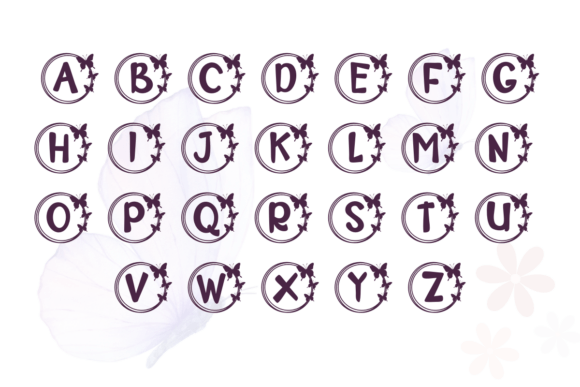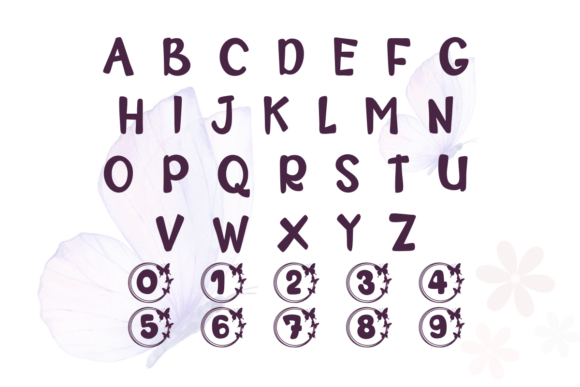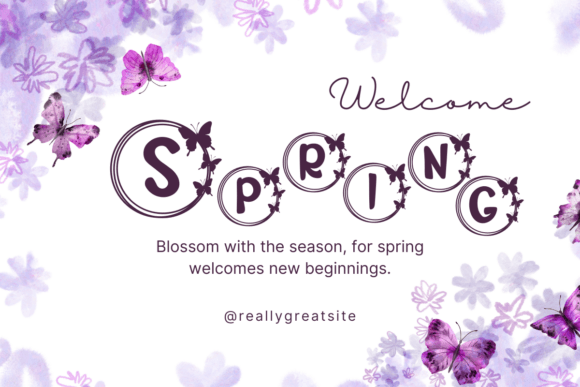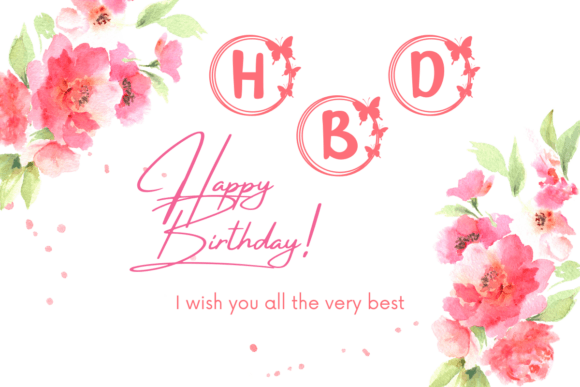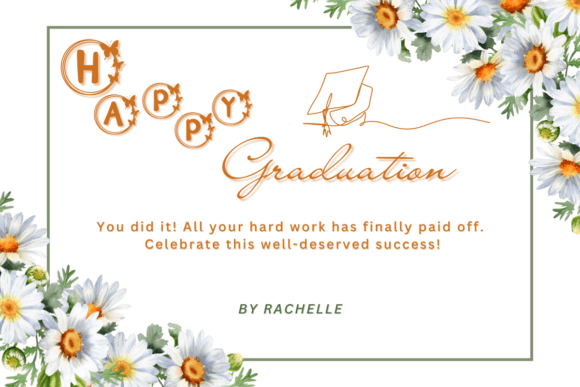
The Perfect Font for Your Creative Expressions
Have you ever sat down with a cup of coffee, a notebook, and a blank page, waiting for inspiration to strike? That’s exactly where I was when I stumbled upon the beautiful Butterfly Spring Font. Its delicate curves and playful touch instantly caught my attention, and I knew I had to learn more about it.
This decorative font is perfect for adding a touch of whimsy to your handwritten notes, diary entries, or greeting cards. But its uses don’t stop there – with the Butterfly Spring Font, the possibilities are endless, from designing banners and social media posts to creating custom mugs and shirts.
Butterfly Spring Font Key Features
- Unique Characteristics: Butterfly Spring Font features a beautiful, hand-drawn design with intricate details and subtle texture, making it perfect for creating visually appealing and elegant typography.
- Font Weight and Style: Available in 6 different font weights (Thin, Light, Regular, Medium, Bold, and Black) and 3 font styles (Regular, Italic, and Bold Italic), allowing designers to achieve the desired level of emphasis and contrast.
Designer Review: Butterfly Spring Font
I’ve had the chance to work with the Butterfly Spring Font, and here’s my honest take.
- The font has a beautiful, whimsical feel to it. It’s perfect for projects that need a touch of elegance and playfulness.
- The character set is well-rounded, with a good selection of glyphs and language support.
- The font’s x-height is well-balanced, making it easy to read, even at smaller sizes.
- The font’s bold weights can feel a bit heavy-handed at times, overpowering the more delicate elements of a design.
- The font’s italic styles can be a bit inconsistent, with some letters feeling more slanted than others.
- The font’s support for complex scripts and languages could be improved.
The Butterfly Spring Font is a lovely addition to any designer’s toolkit. While it has its limitations, it’s a great choice for projects that need a touch of whimsy and elegance. With a bit of finesse, you can create truly stunning designs that showcase the font’s unique personality.
Tips for Getting the Most Out of Butterfly Spring Font
Use the Butterfly Spring Font to add a touch of elegance and sophistication to your designs. Pair it with bold or italic fonts to create visual interest. Experiment with different font sizes and colors to create a unique look.
The Butterfly Spring Font is perfect for:
– Editorial and publishing content
– Any design project that requires a touch of elegance and sophistication
Alternatives to Butterfly Spring Font
Great Vibes is a beautiful, modern calligraphy font that works well for headings and titles. It’s perfect for creating a relaxed, casual atmosphere in designs such as invitations, wedding cards, and social media graphics. Great Vibes is more ornate and detailed compared to Butterfly Spring Font, making it ideal for designers who want to add a touch of elegance to their work.
Lato is a clean, sans-serif font that is highly legible and versatile. It’s suitable for a wide range of designs, from corporate materials to creative projects. Compared to Butterfly Spring Font, Lato is more minimalist and modern, making it an excellent choice for designers who want to create a clean and professional look.